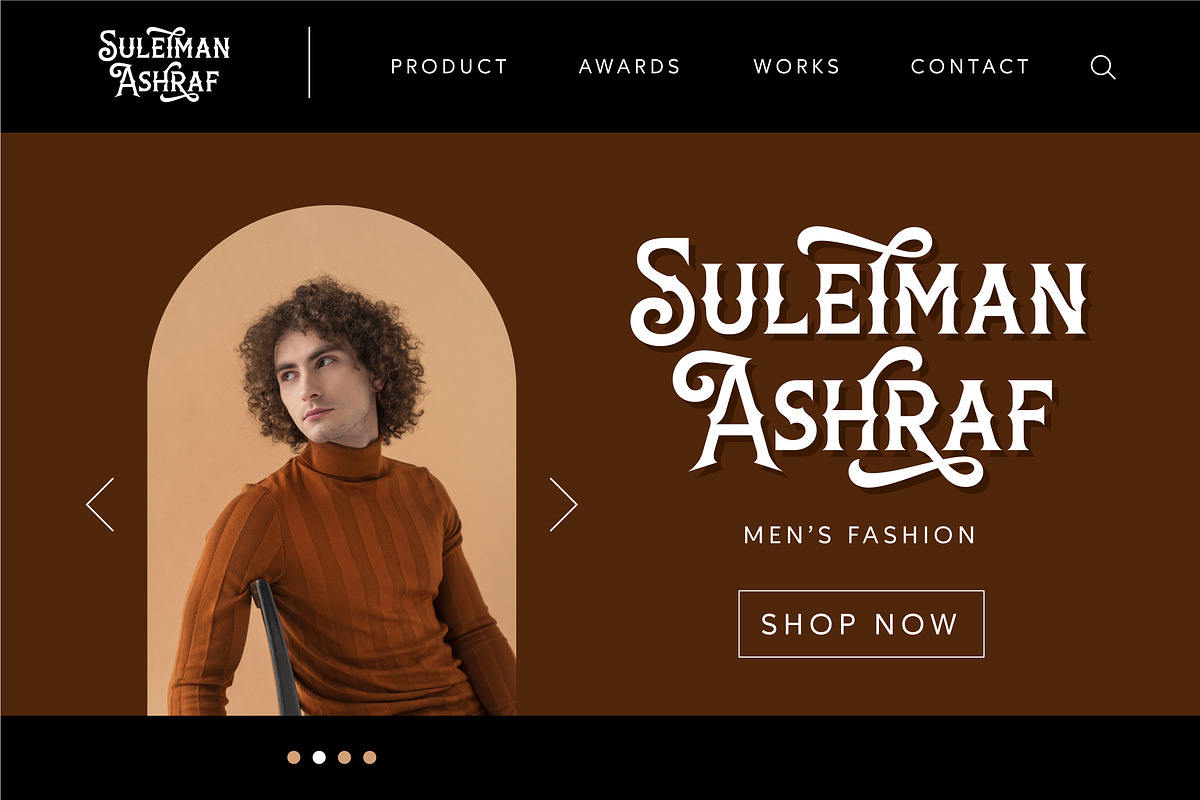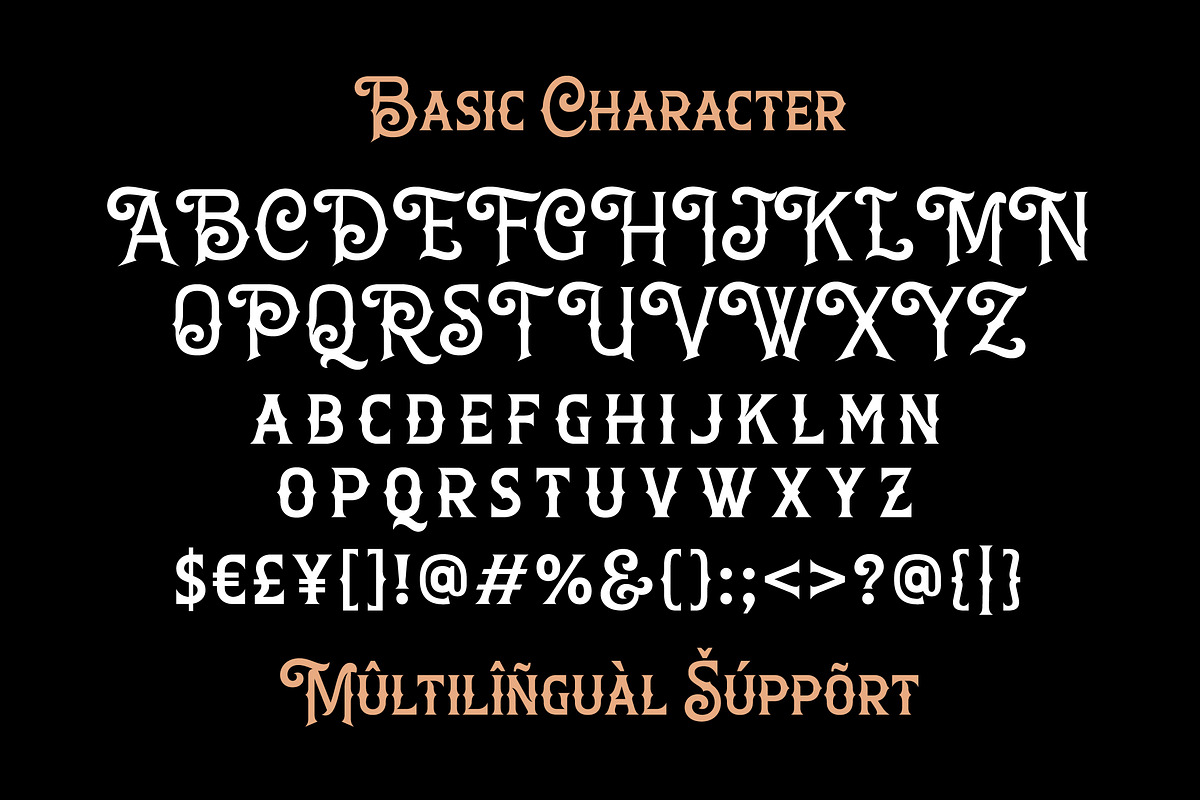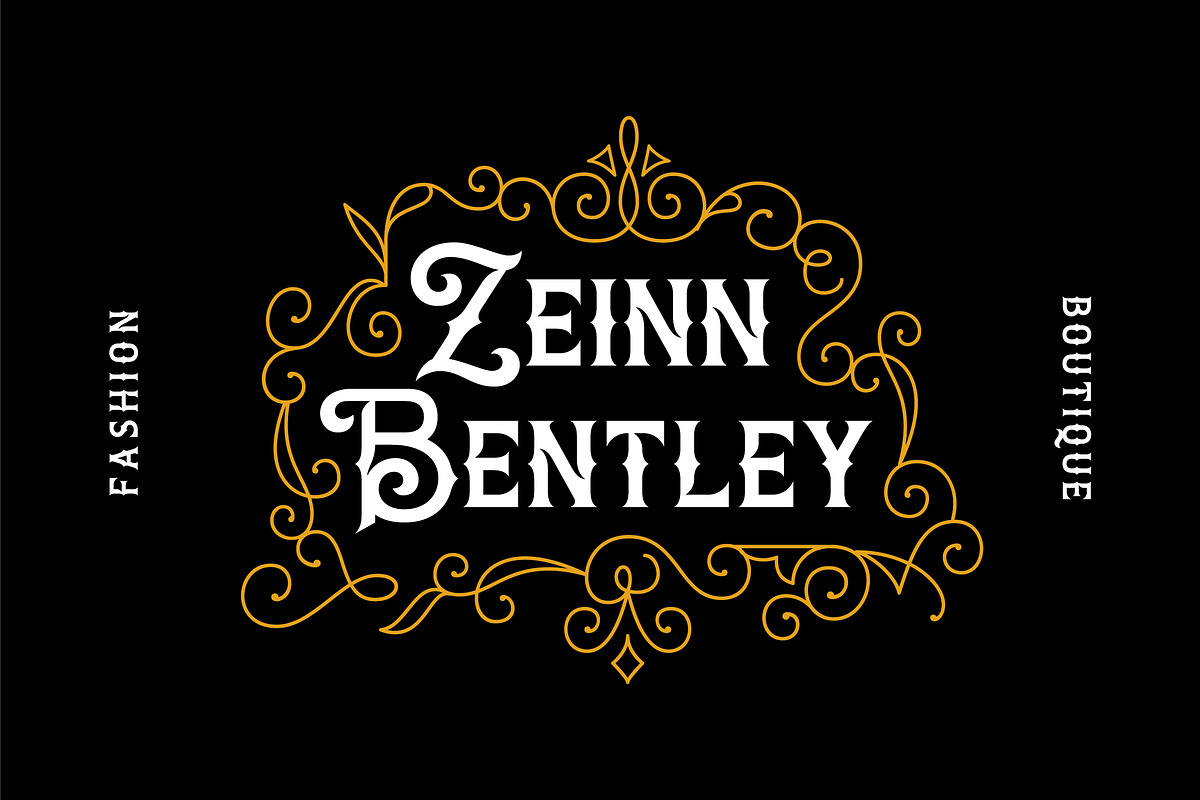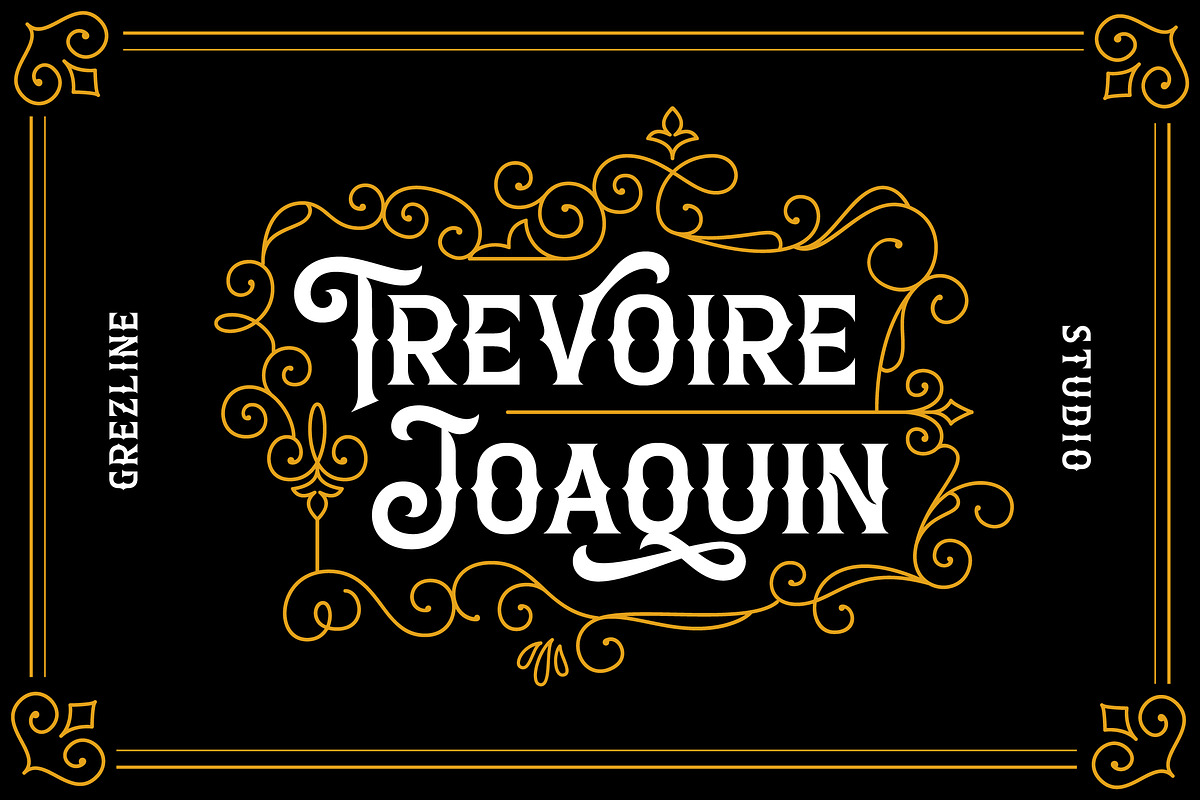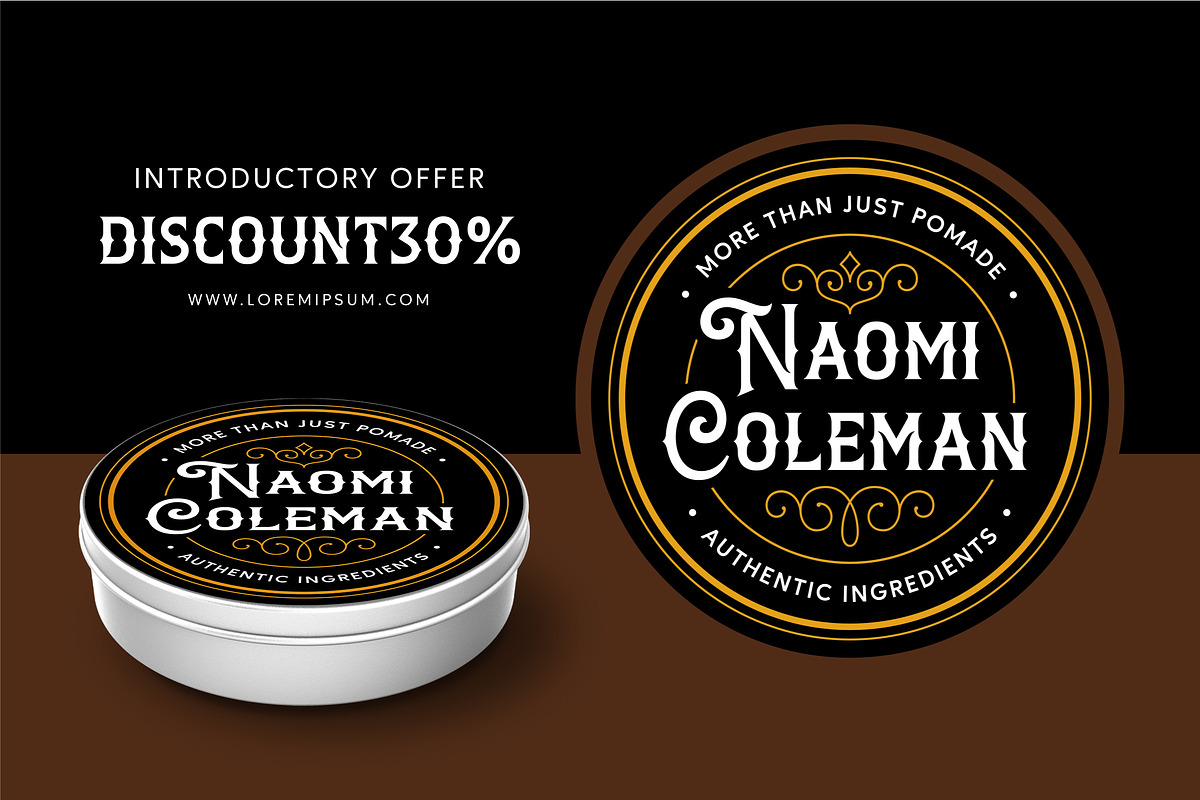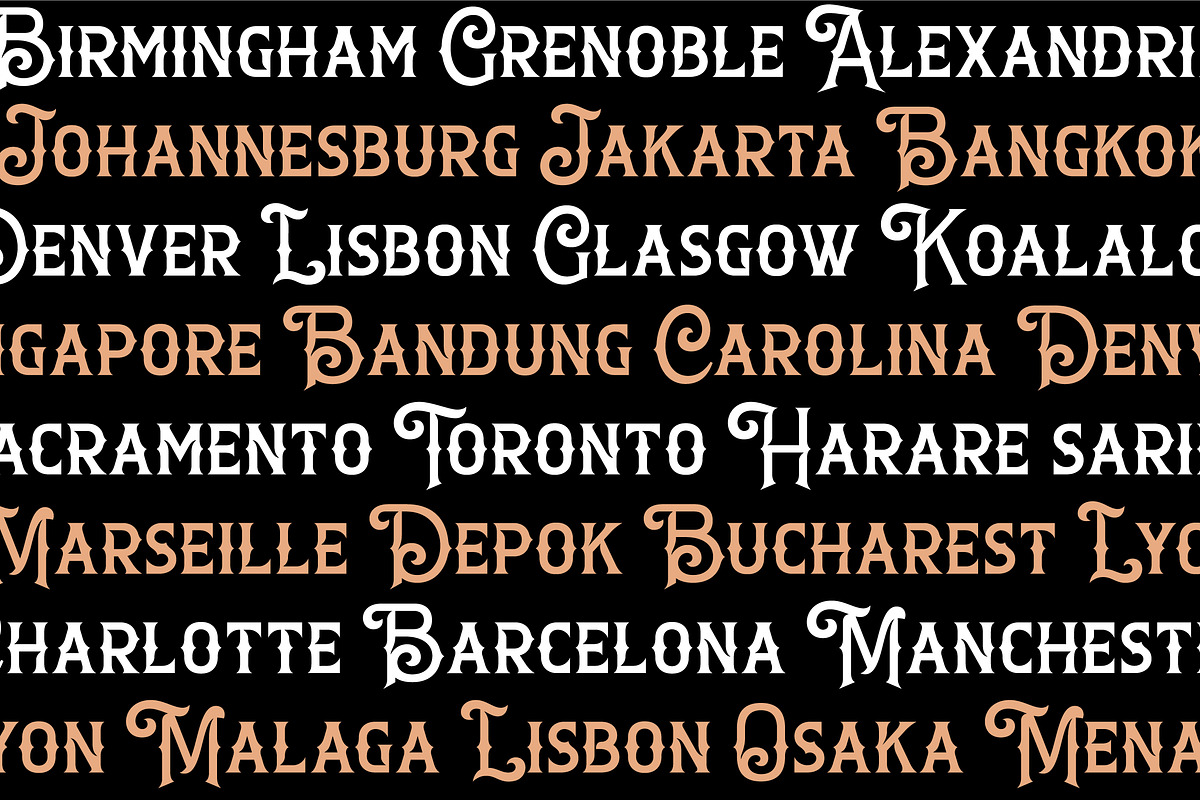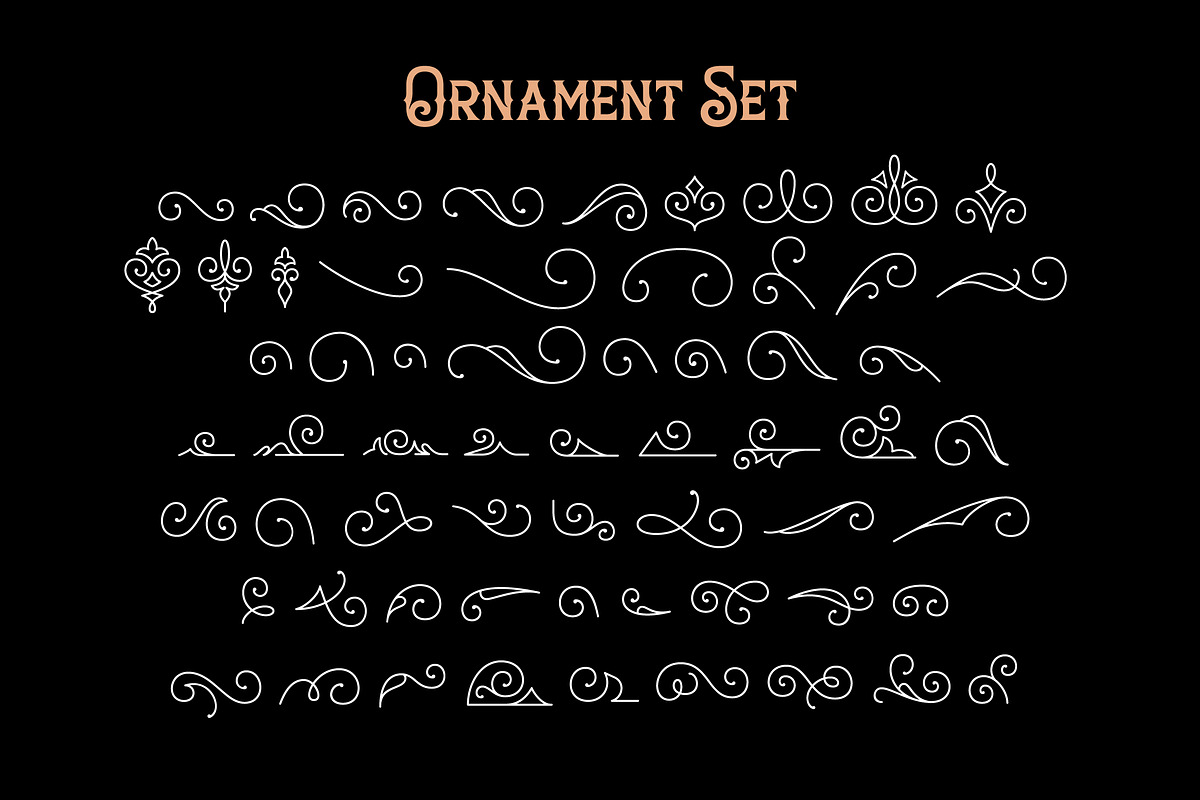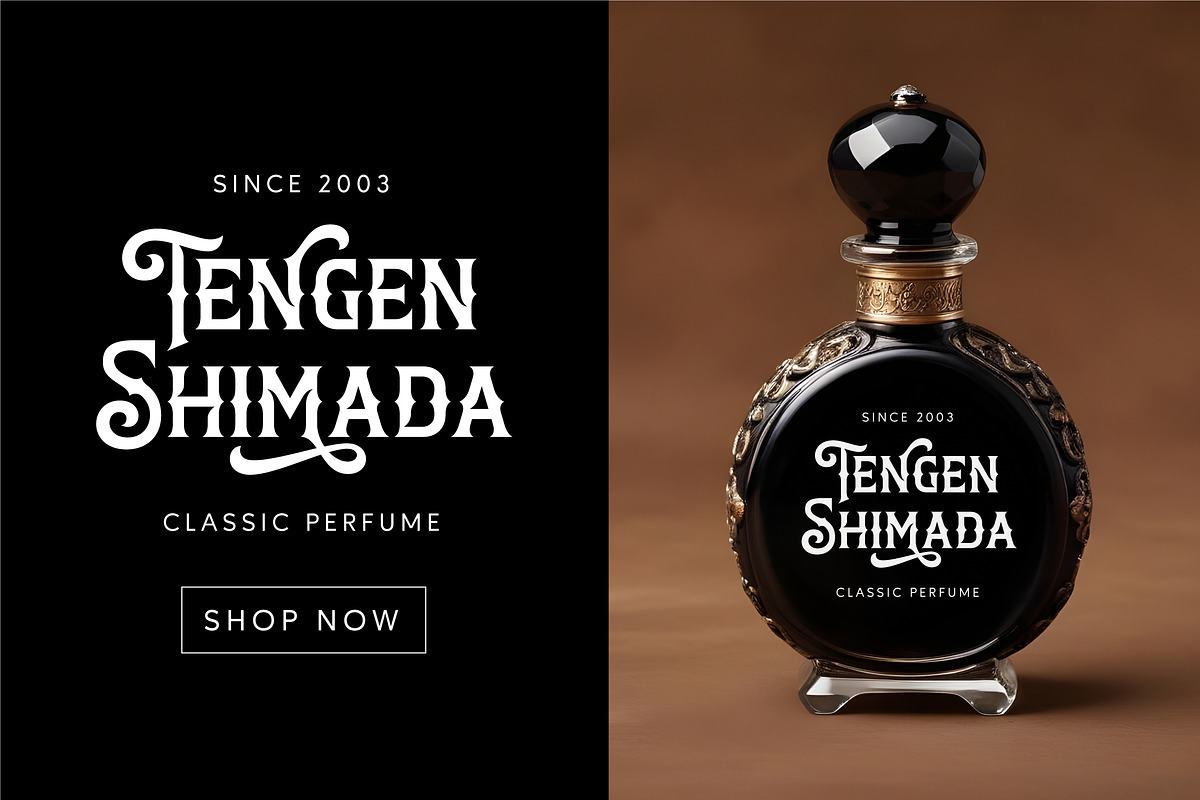
Trevoire Joaquin - Vintage Font
Trevoire Joaquin is a vintage font with classic aesthetic accompanied by ornament glyph set. This font is great for logos & branding, titles, web design, merchandise, advertising & much more! Don’t miss the opportunity to elevate your designs with the charm and elegance of vintage typography!
- Ornament Glyph Set
- Multilingual Language